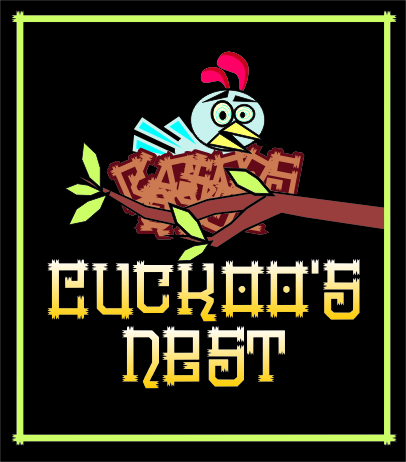
Congratulations! FontStruct Staff have deemed your FontStruction worthy of special mention. “Cuckoo's Nest” is now a Top Pick.
Love how you've build your nest out of glyphs!
The sample made me smile, how perfect. A happy bird on a cheerful font.
Creatively cheerful.
This font is amazing except for one thing: Some of the letters are hard to distinguish capital from lowercase.
i like it